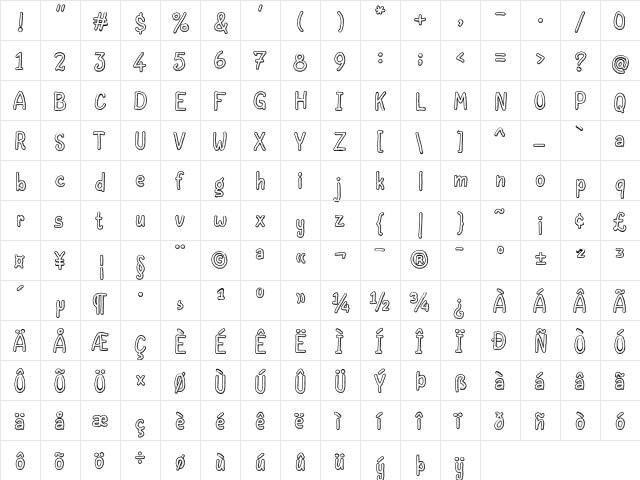
Peanut Regular
Design Context for Peanut Typeface
Peanut is a composed and adaptable typeface that performs quietly and consistently across a wide range of design contexts.